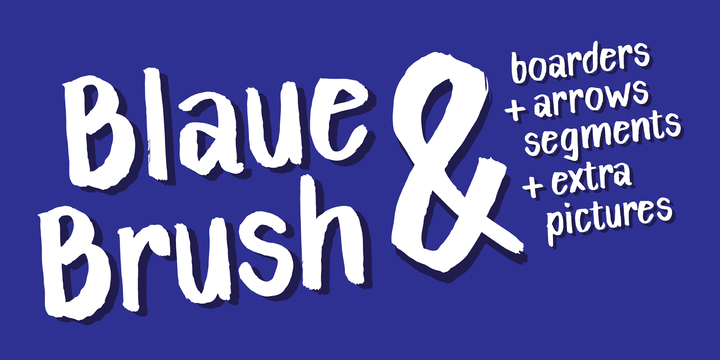
Blaue Brush is a handmade typeface painted with a Japanese brush marker on smooth paper. While the font was digitalised, special care was taken to retain its handmade character; as a result it is rough and authentic.
Blaue Brush offers a complete font set in one weight that can be used in many languages, with uppercase, lowercase and a full range of decorative characters – a set of five decorative borders, arrow segments and many image characters. Blaue Brush is suited for use in packaging design for labels, tags, posters, unique occasions, music band styles and whatever else. Embrace the brush!